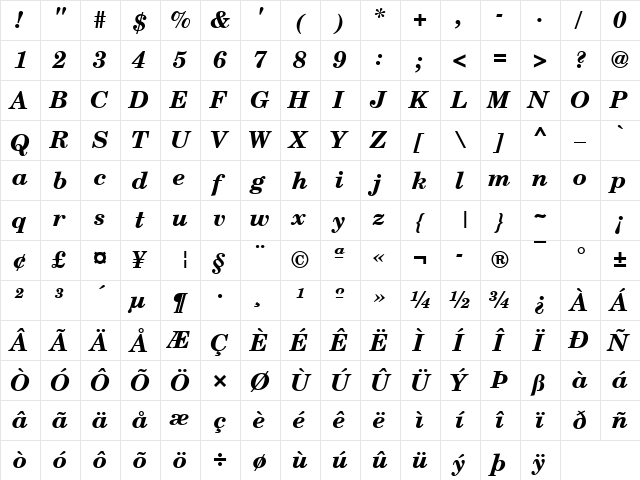
Century Becker Schoolbook Bold Italic Font Preview
Design Context for Century Becker Schoolbook Typeface
Century Becker Schoolbook offers clean, dependable letterforms without strong stylistic allegiance, making it a practical choice for designers who need flexibility. The dynamic lean of this cut emphasises speed and emphasis in any layout. The heavy weight commands attention and anchors typographic hierarchies.
Pro Tip: Try Century Becker Schoolbook for annotation and caption copy alongside an upright companion — the contrast in angle creates a dynamic but ordered typographic system.